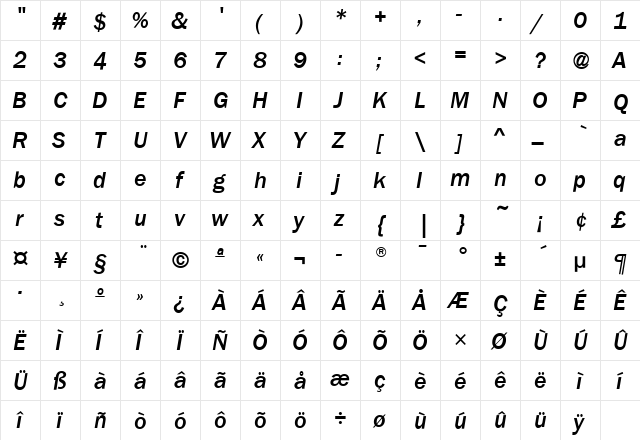
FranklinGotMdITC Italic
Design Context for FranklinGotMdITC Typeface
FranklinGotMdITC takes a measured approach to typography — its balanced proportions and neutral character make it a reliable workhorse for both digital and print work. The dynamic lean of this cut emphasises speed and emphasis in any layout.
Pro Tip: Use FranklinGotMdITC for emphasis, pull quotes, and subheadings where its slanted energy can add rhythm to the layout.